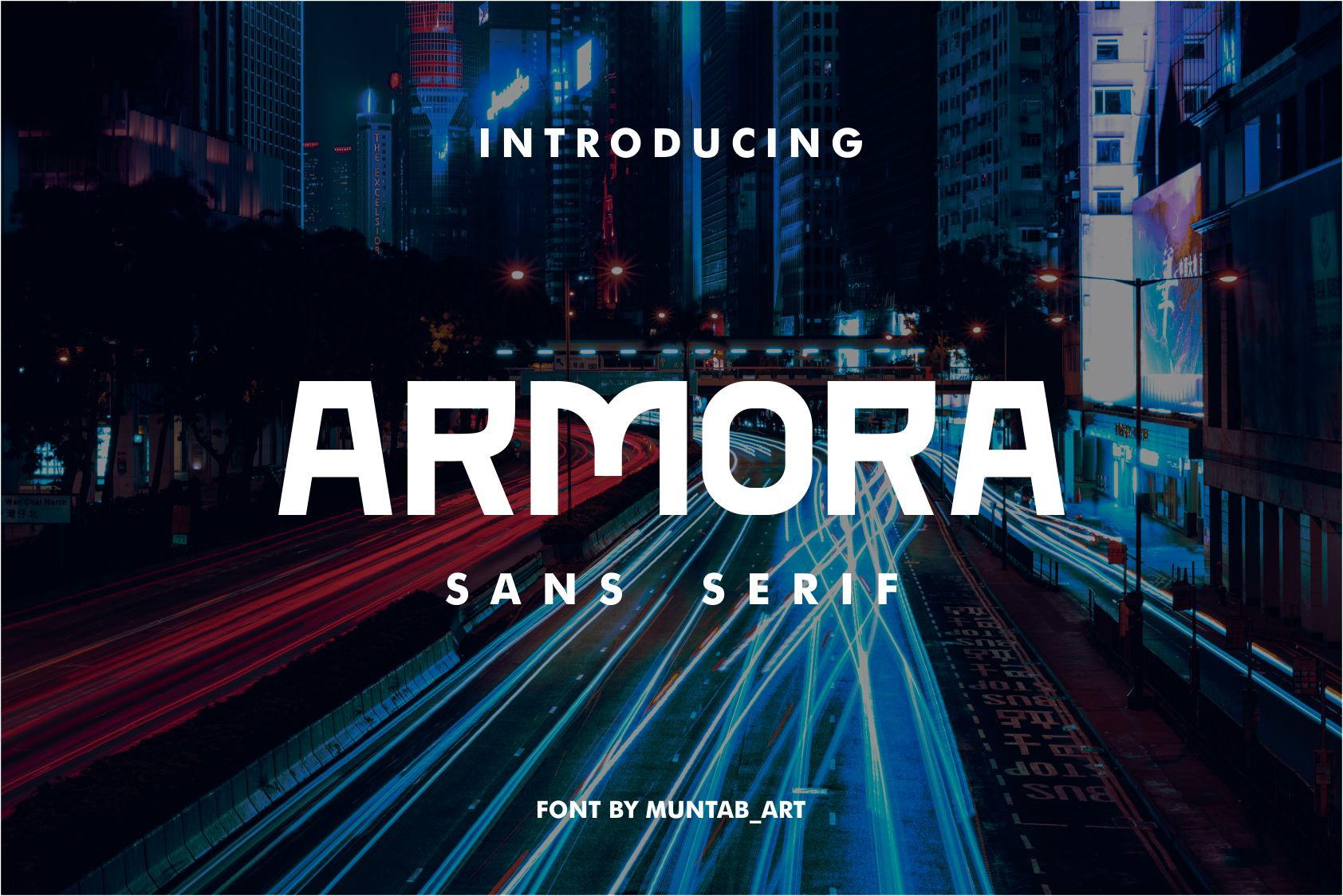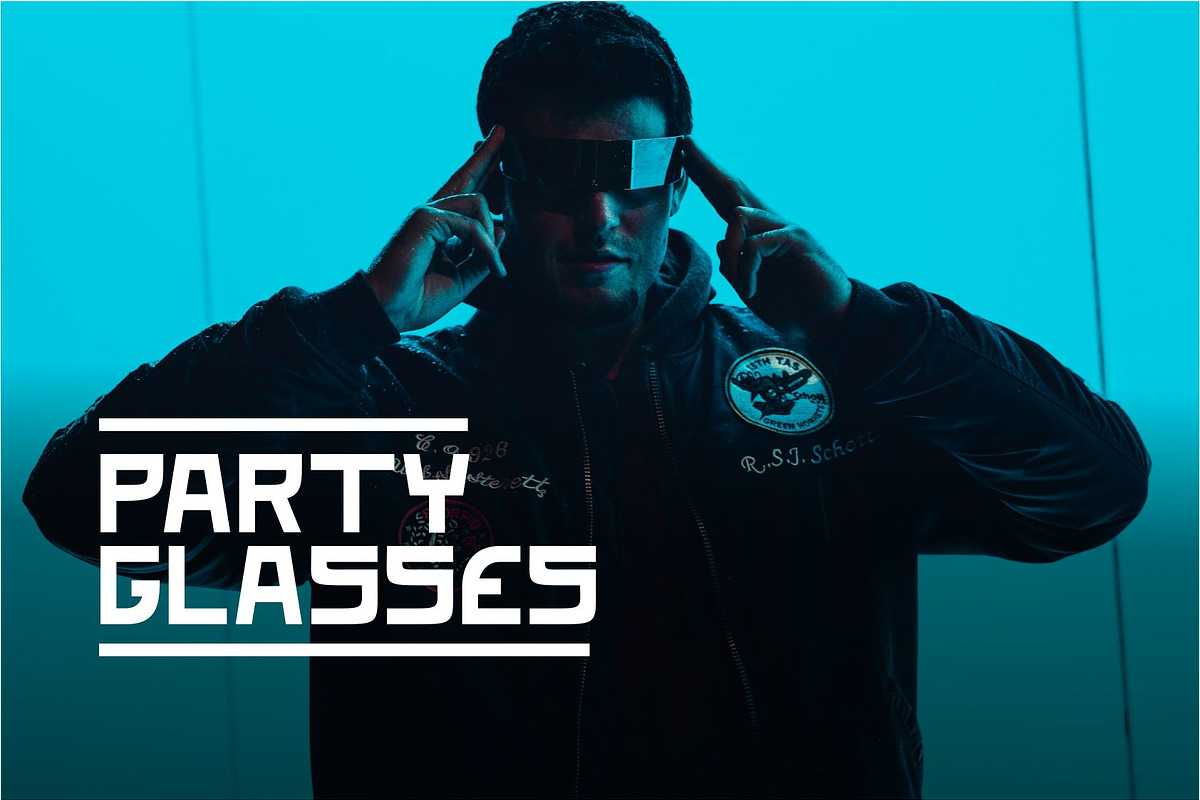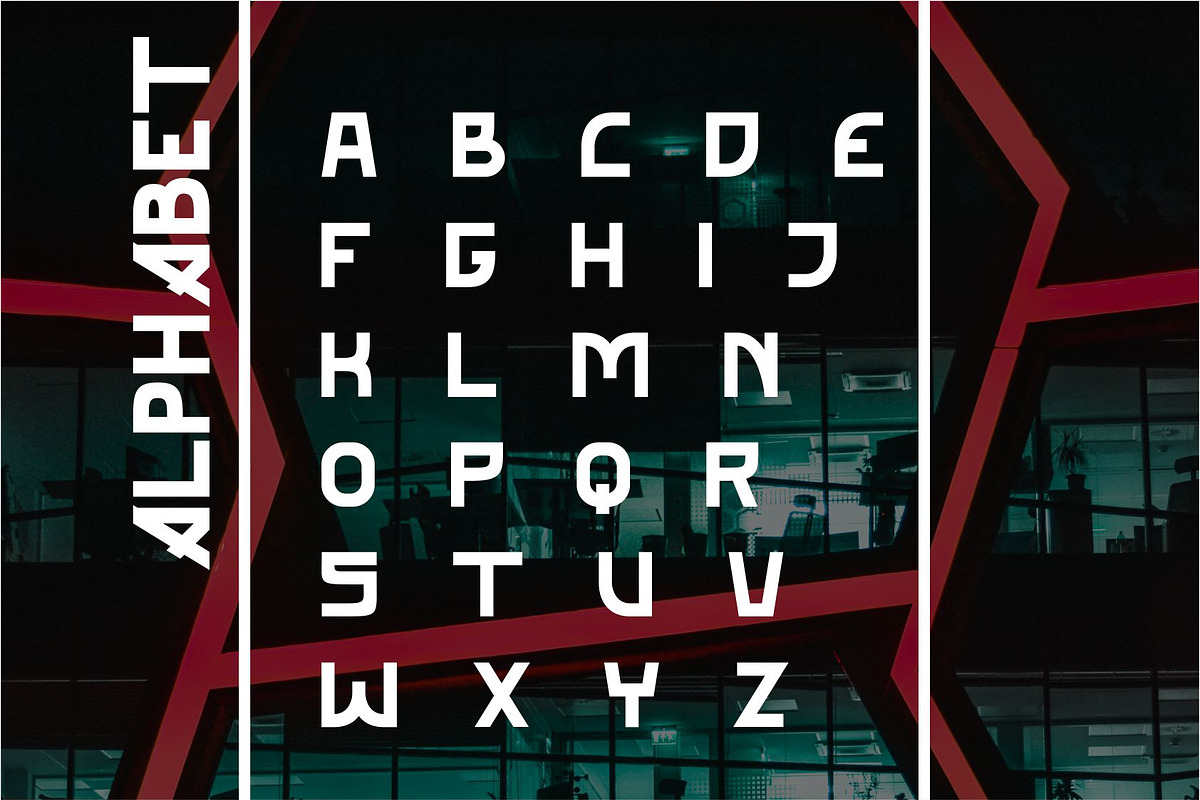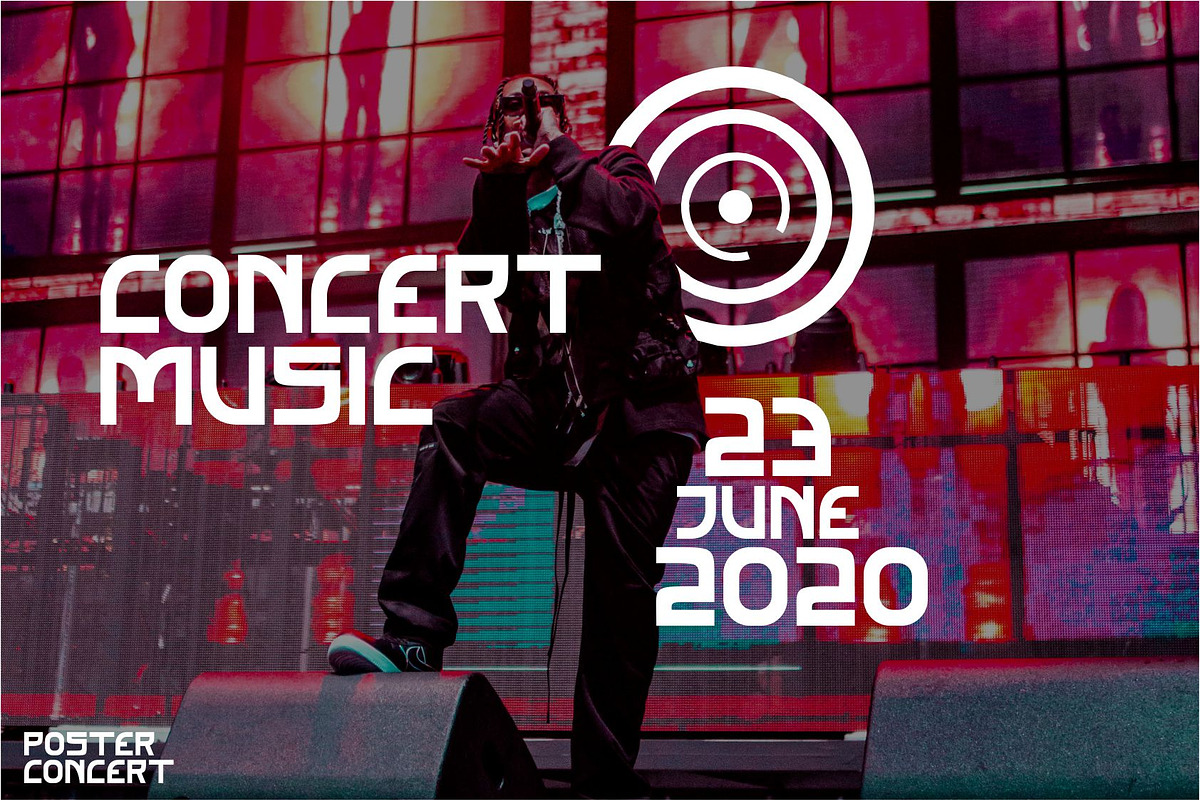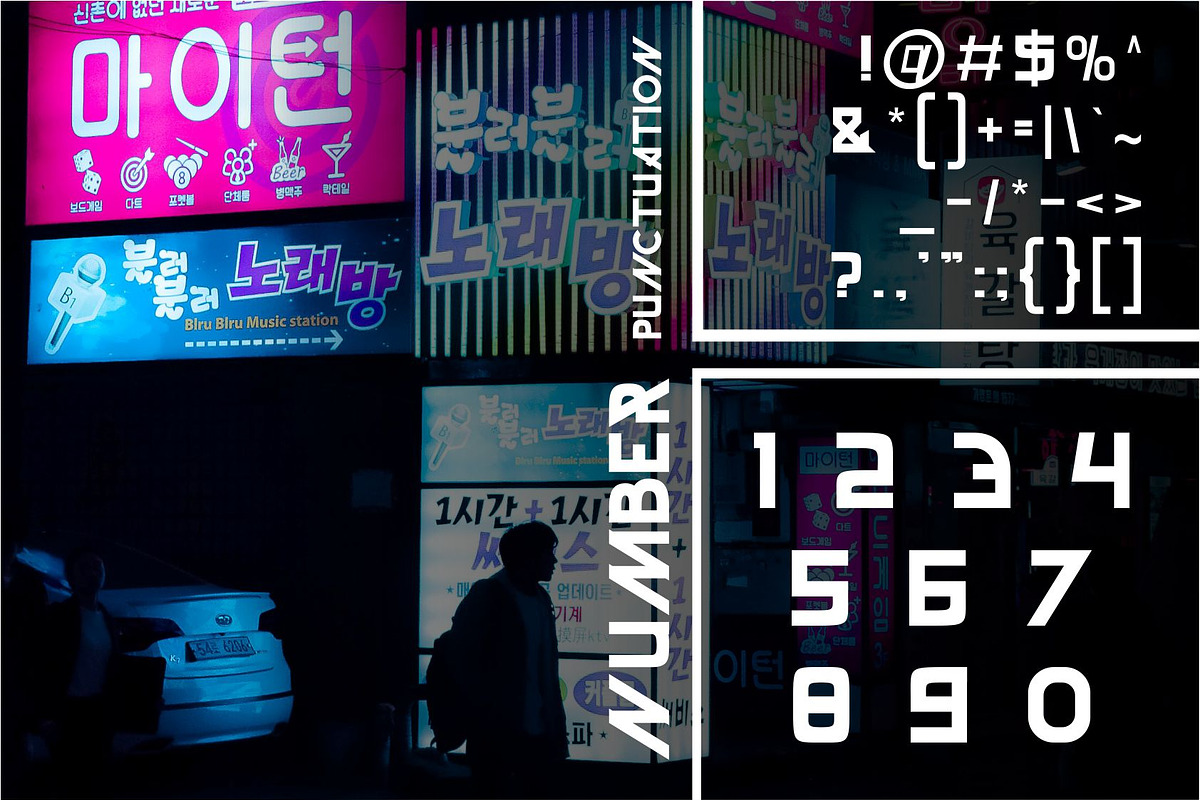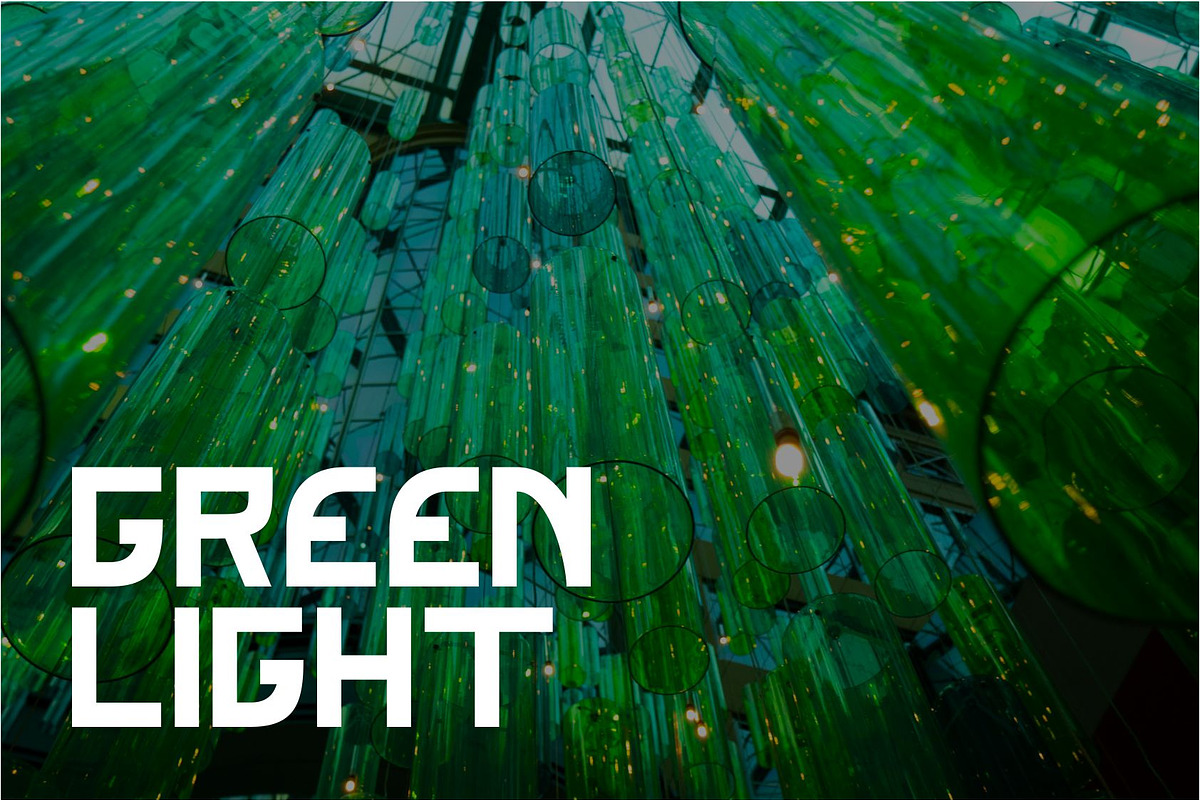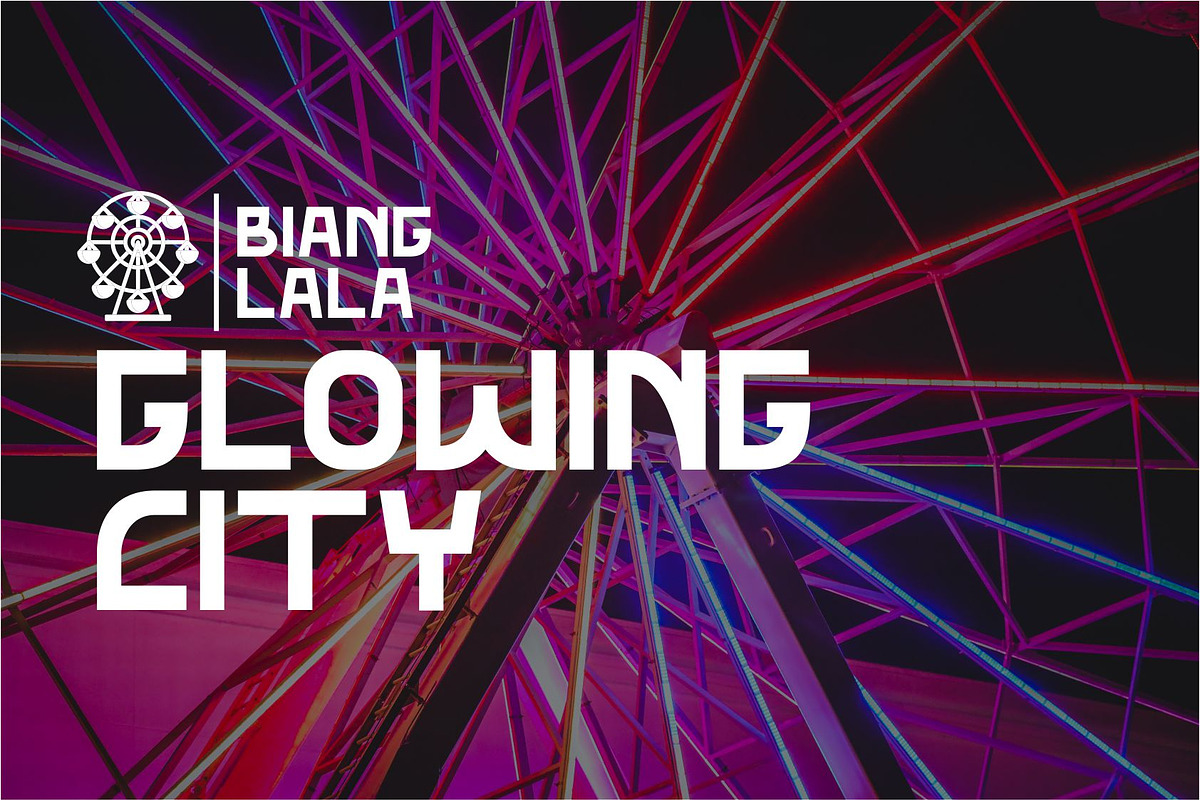
Armora | Modern Font
Armora fonts includes uppercase letters, numerals, a large range of punctuation. Sans serif font with modern style. Created for poster, web design, branding, illustrations, badges and some other works.